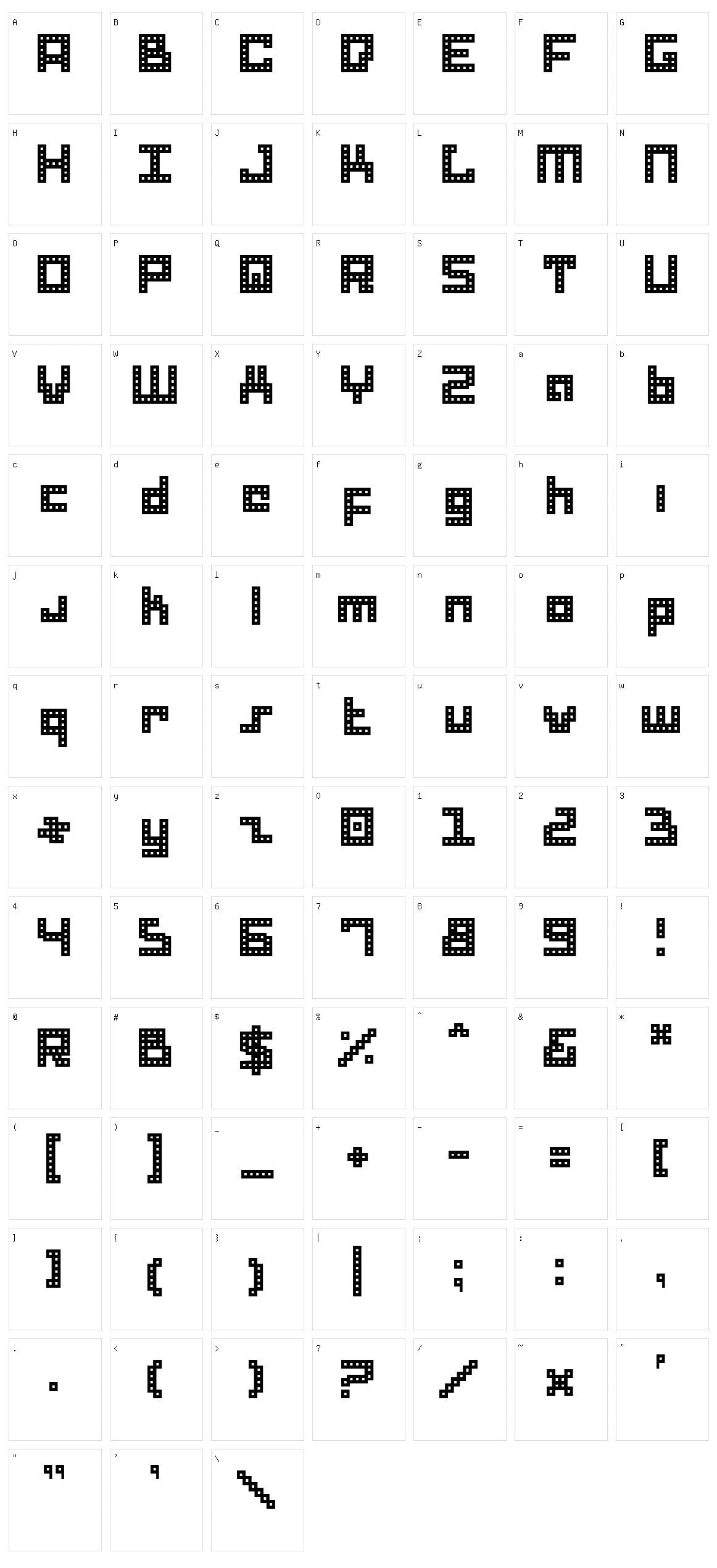
The free font Drid Herder is carefully designed by Iconian Fonts, showcasing a thoughtful balance of creativity and usability and falls under the Square font style. When you download the ZIP file, it contains only 102.99 KB of font files, making it lightweight and quick to download. Please review the license details below to understand permitted usage and distribution rights. If license information is not available, we recommend using this font for personal projects only or contacting the author directly for commercial usage permissions.